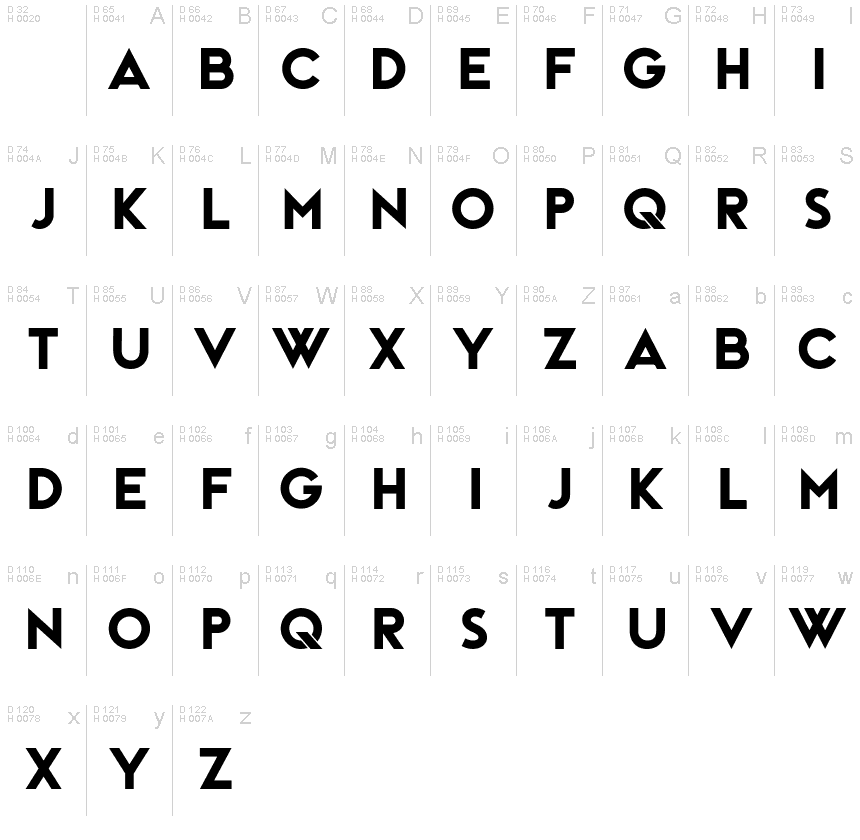
Cd Rom Regular
Cd Rom, designed by Vladimir Nikolic, is a bold sans serif font with a semi-expanded width. This versatile typeface is perfect for various projects that demand attention and modernity.
Its clean and legible design makes it suitable for headlines, logos, packaging designs, and advertising materials. With its bold weight and semi-expanded width, Cd Rom exudes confidence and commands presence on any digital or print medium. Whether you are designing a website or creating a poster, Cd Rom will ensure your content stands out with its unique style and visual impact.